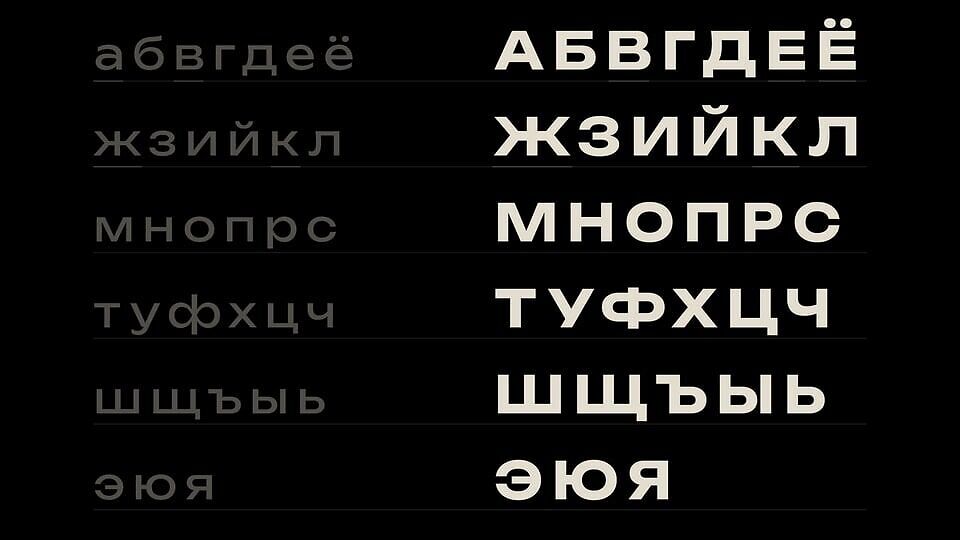
Bounded is a modern variable sans serif font, derived from the Unbounded typeface, designed without broken lines for maximum impact and versatility. Its powerful structure and clean lines deliver a confident, contemporary aesthetic, making it ideal for branding, headlines, and editorial design.
With multiple weight options, this font adapts seamlessly to diverse needs, from sleek digital interfaces to bold print layouts. Whether crafting a dynamic logo, a striking poster, or a high-tech UI, Bounded font exudes a commanding presence with modern sophistication.